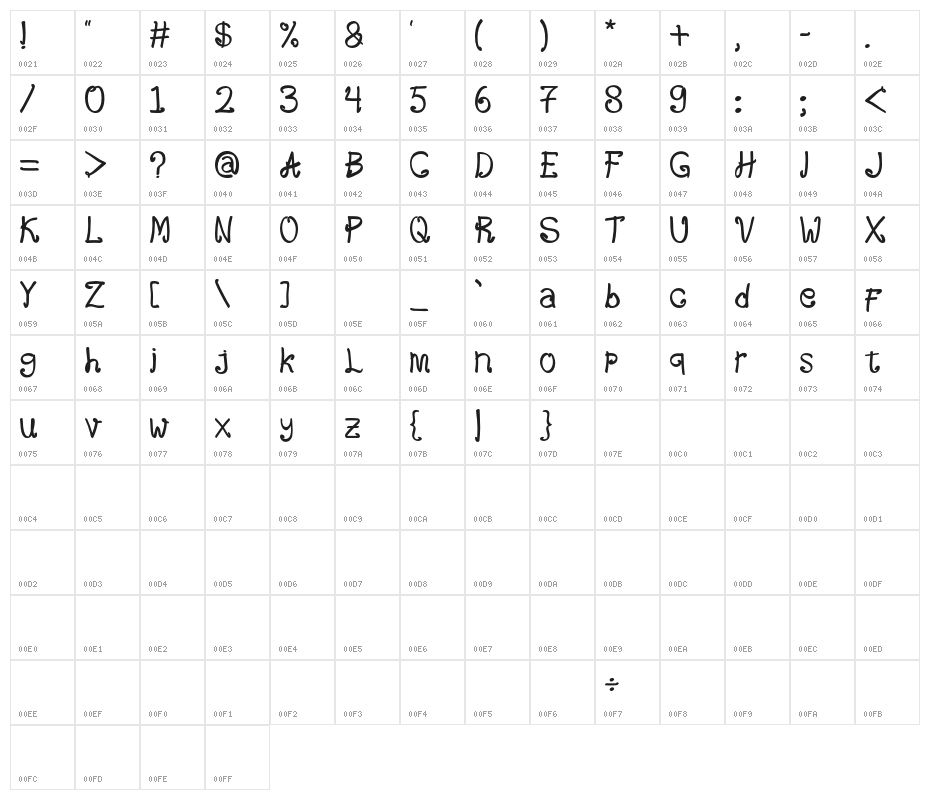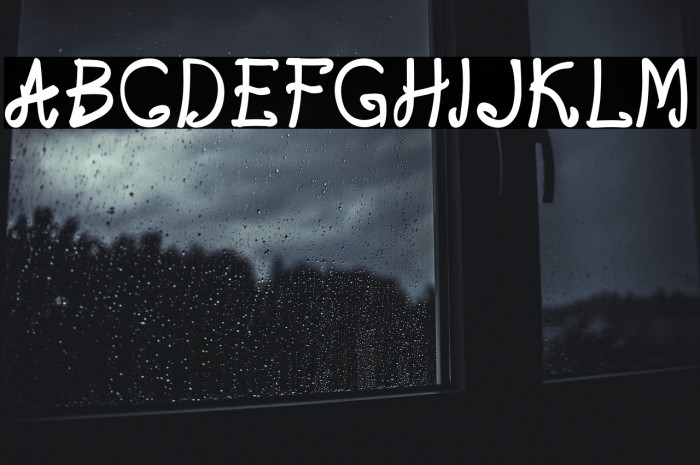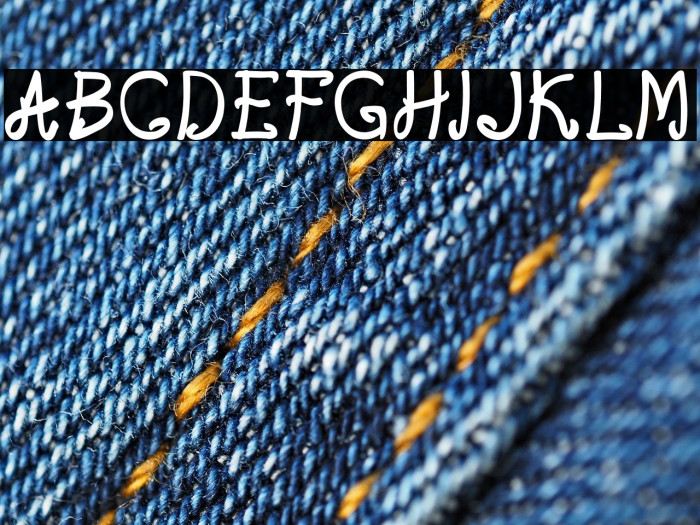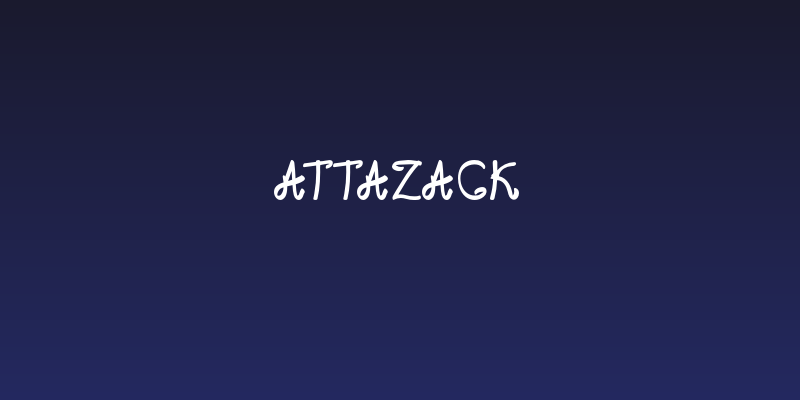
Attazack Font
Attazack Description
This playful and whimsical font features a handwritten style with a casual and friendly appearance. The letters are characterized by their rounded edges and slight slant, giving them a dynamic and lively feel. The uppercase and lowercase letters maintain a consistent style, with some letters having unique flourishes that add to the font's charm. The numerals are bold and clear, ensuring readability. Special characters are creatively designed to match the overall aesthetic, making this font versatile for various applications.